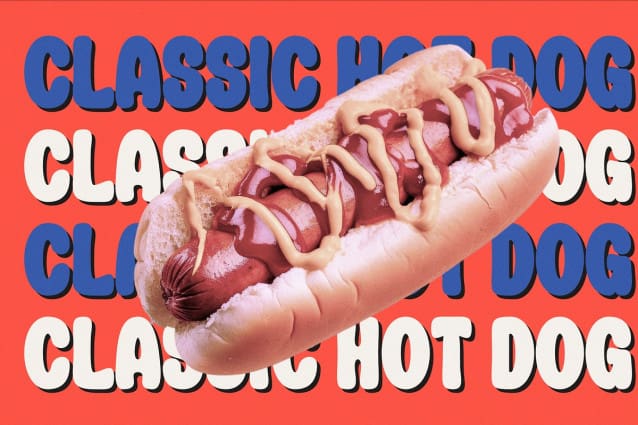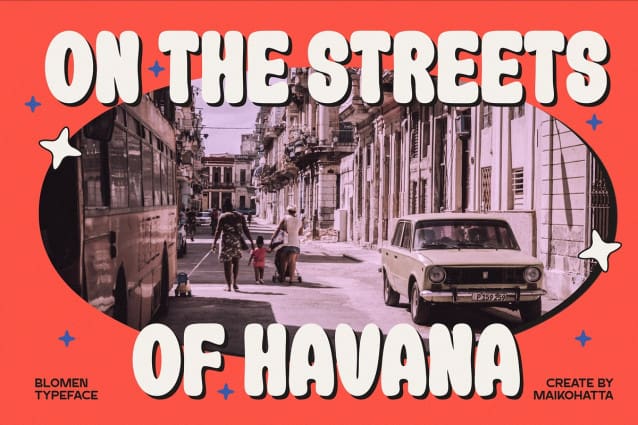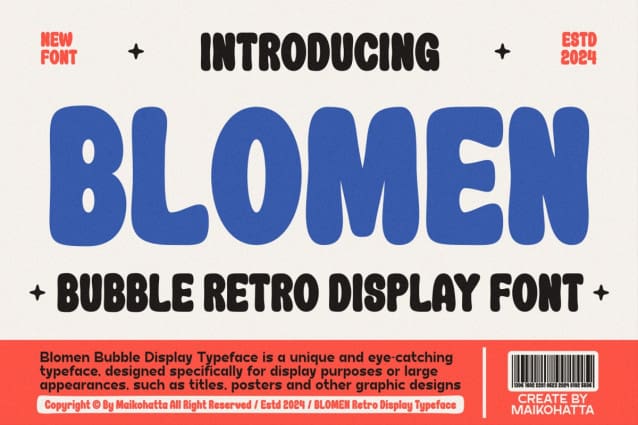
Blomen Display Font
Blomen Display Font – Bubble Retro Display. This font has round and wide letter shapes with curved corners, giving a soft and friendly impression. Because of this, this font is often chosen for designs aimed at children or those with a playful nature, as it conveys a more youthful and cheerful feel.